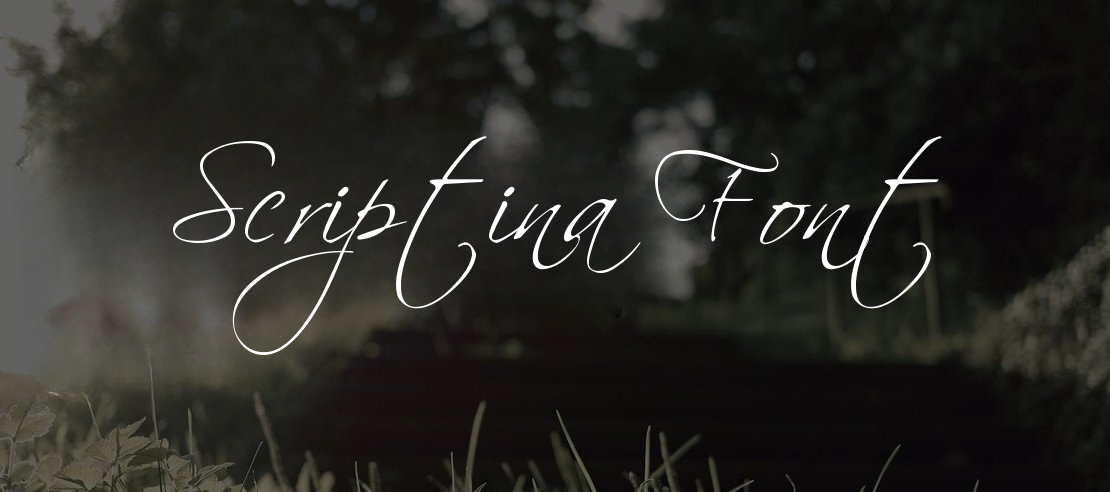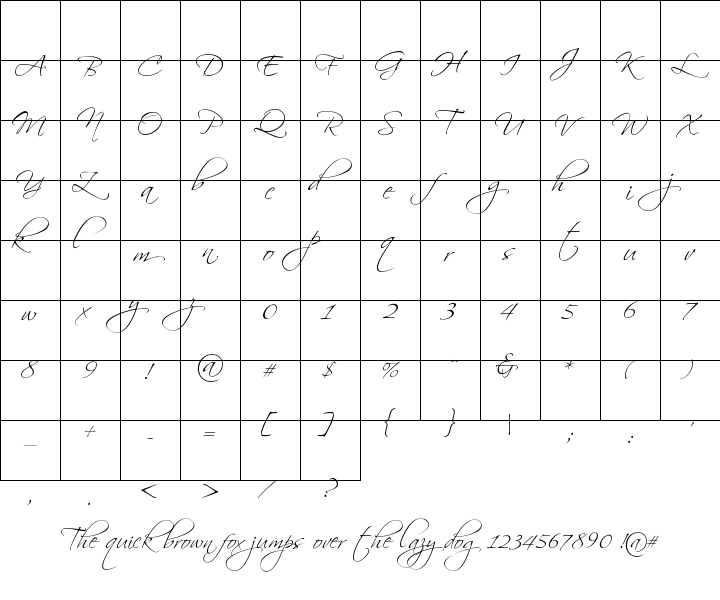
Scriptina Font is an elegant and stylish font style that is a member of the Calligraphy font family. The texture of this style is perfectly hand-written that provides professional vibes. You can easily utilize this font and give your designs a professional texture appearance. This textured style is used to create storefronts, covers, logos, and T-shirt designs, among other things.
It’s also perfect for homeware designs, branding projects, and adding lovely overlay text to any photo design because of its slender appearance.
This typeface is also appropriate for modern projects and websites. This typeface is also used in a variety of other interesting and unusual projects. Because of its formal and beautiful text qualities, it is also well-known among designers.
As a result, many designers incorporate it into a wide range of projects and concepts. This font style is also popular for its copy and paste function. you can compare it with Coneria Script Font.
Creator of Scriptina Font
This professional and stylish typeface is designed by Astrophic labs. This typeface-making foundry has also made many of the elegant script fonts that are popular all over the globe.
This typeface texture is made up particular style. Each style in this family includes capital letters, tiny letters, glyphs, punctuations, numbers, symbols, and special characters, as well as support for a wide range of languages.
View of Scriptina Font
| Name | Scriptina Font |
| Style | Calligraphy |
| Designer | Astrophic labs |
What type of font is Scriptina font?
It is a type of calligraphy font style that has a stylish and hand-written font appearance. It is designed by Astrophic labs.
What font is closest to Scriptina Font?
The feel of some of the typographies is incredibly similar to that of this typeface. On the other hand, the Dancing Script typeface is remarkably similar to this font. This typeface can be used as an alternative to the Dancing Script font style.